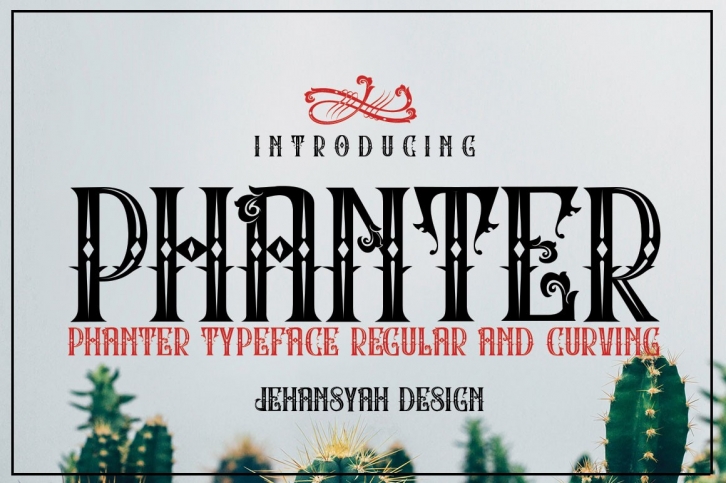
PHANTER is a gorgeous font that was realeased on June 10, 2019. The font can be used in many style contexts and design environments. Perfect for invitations, magazines, websites, logos, and more! It was designed by baldam and the file size is 10.74 MB. Thanks for checking out this font!